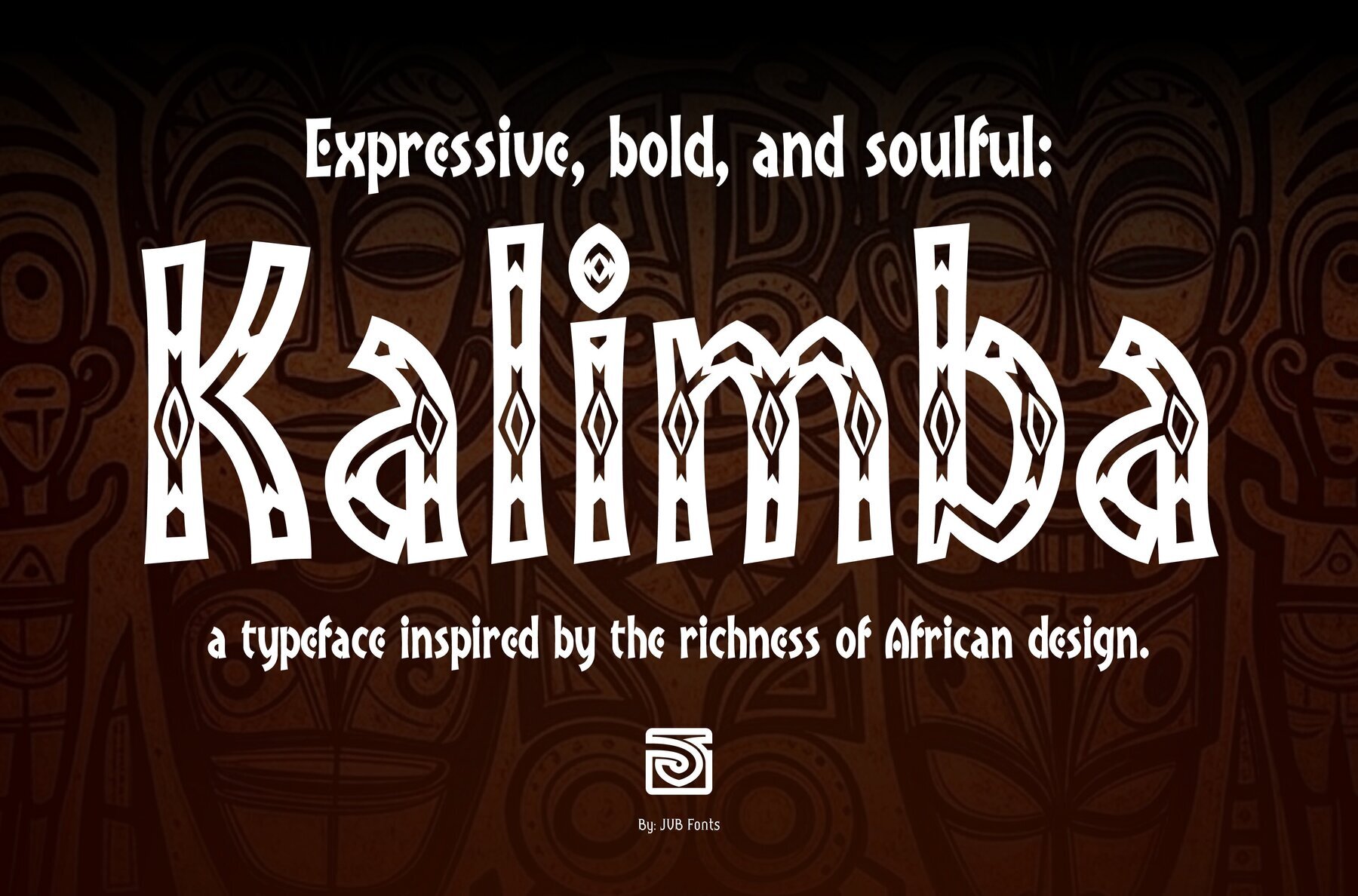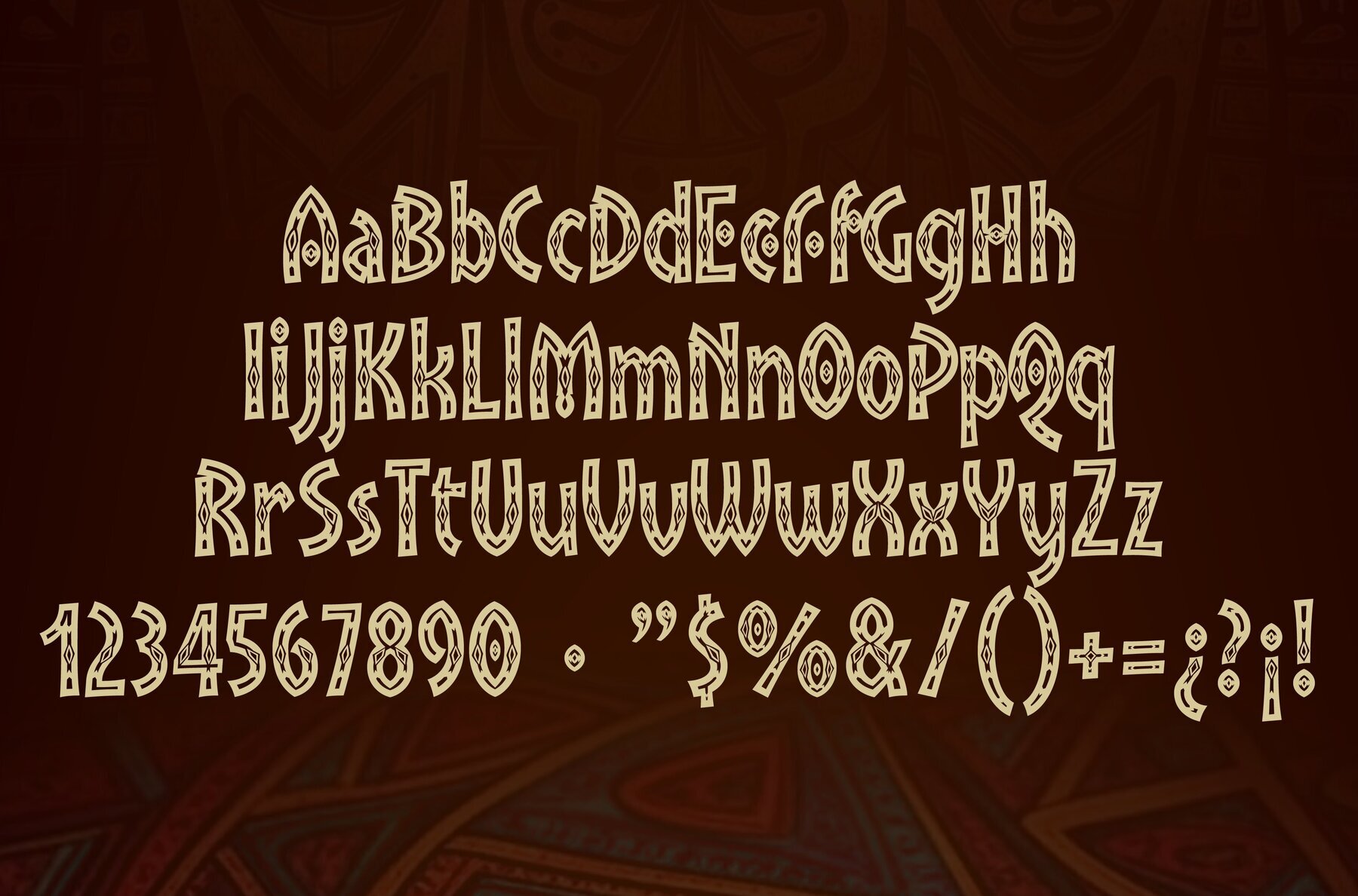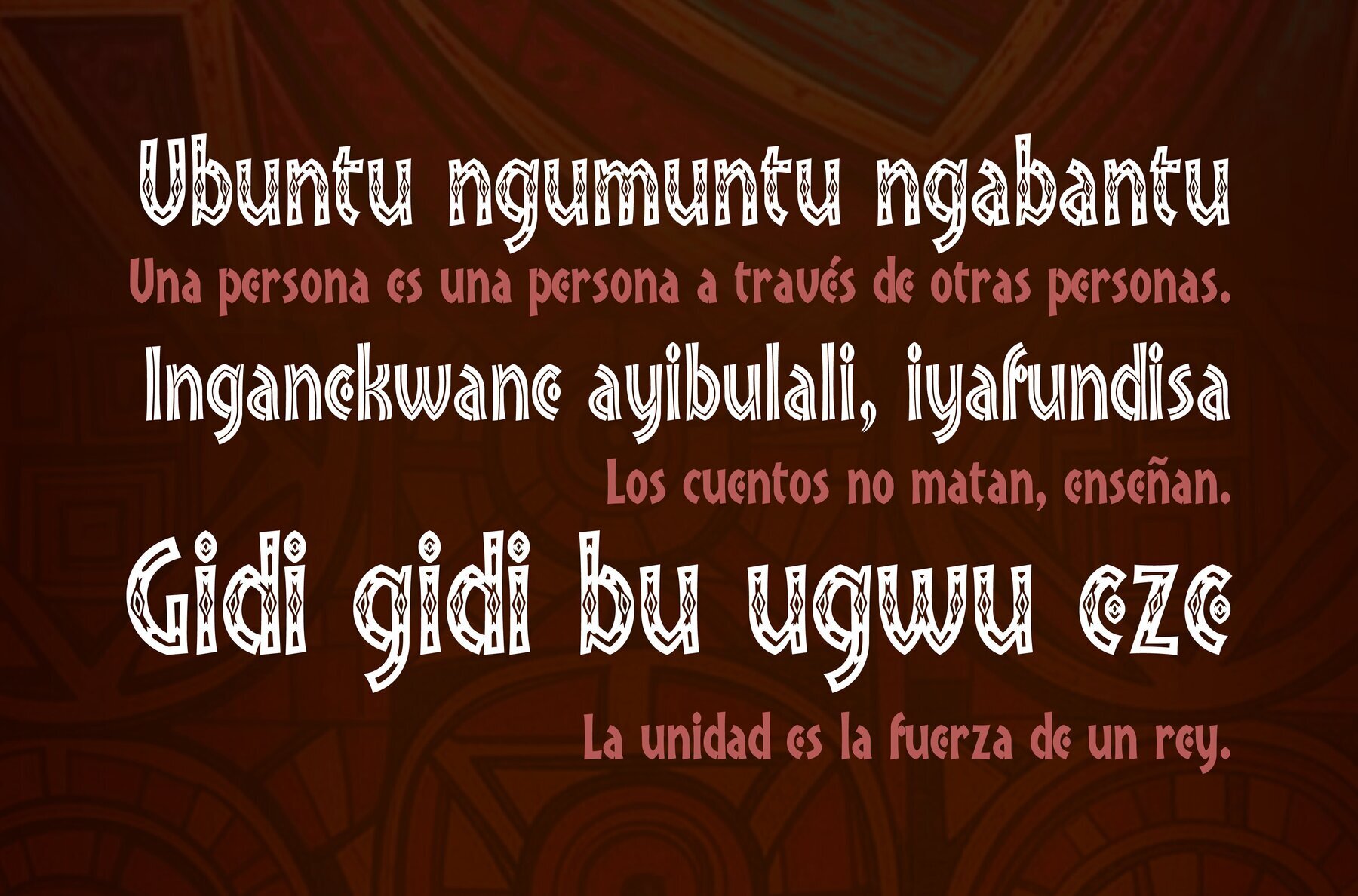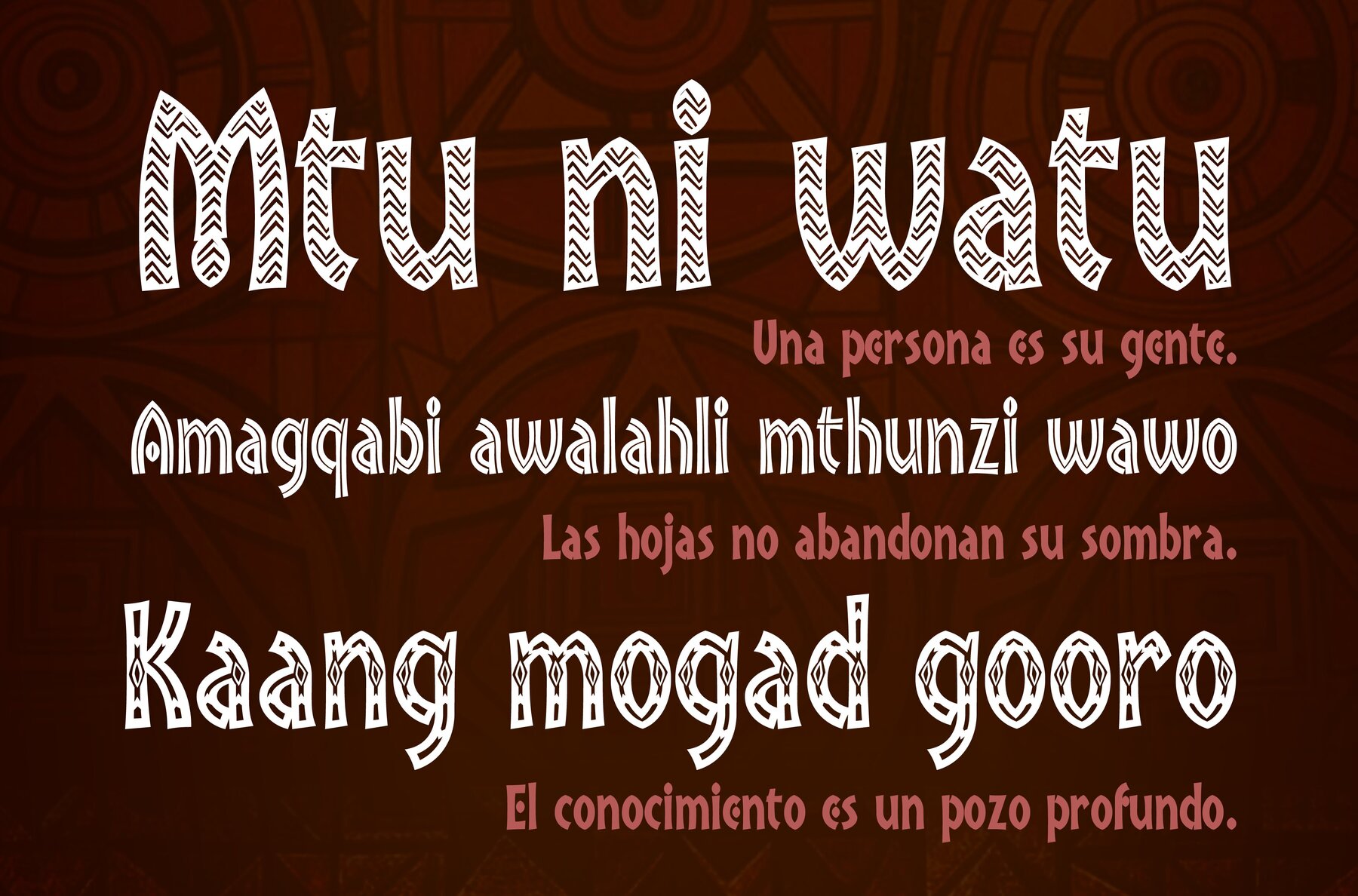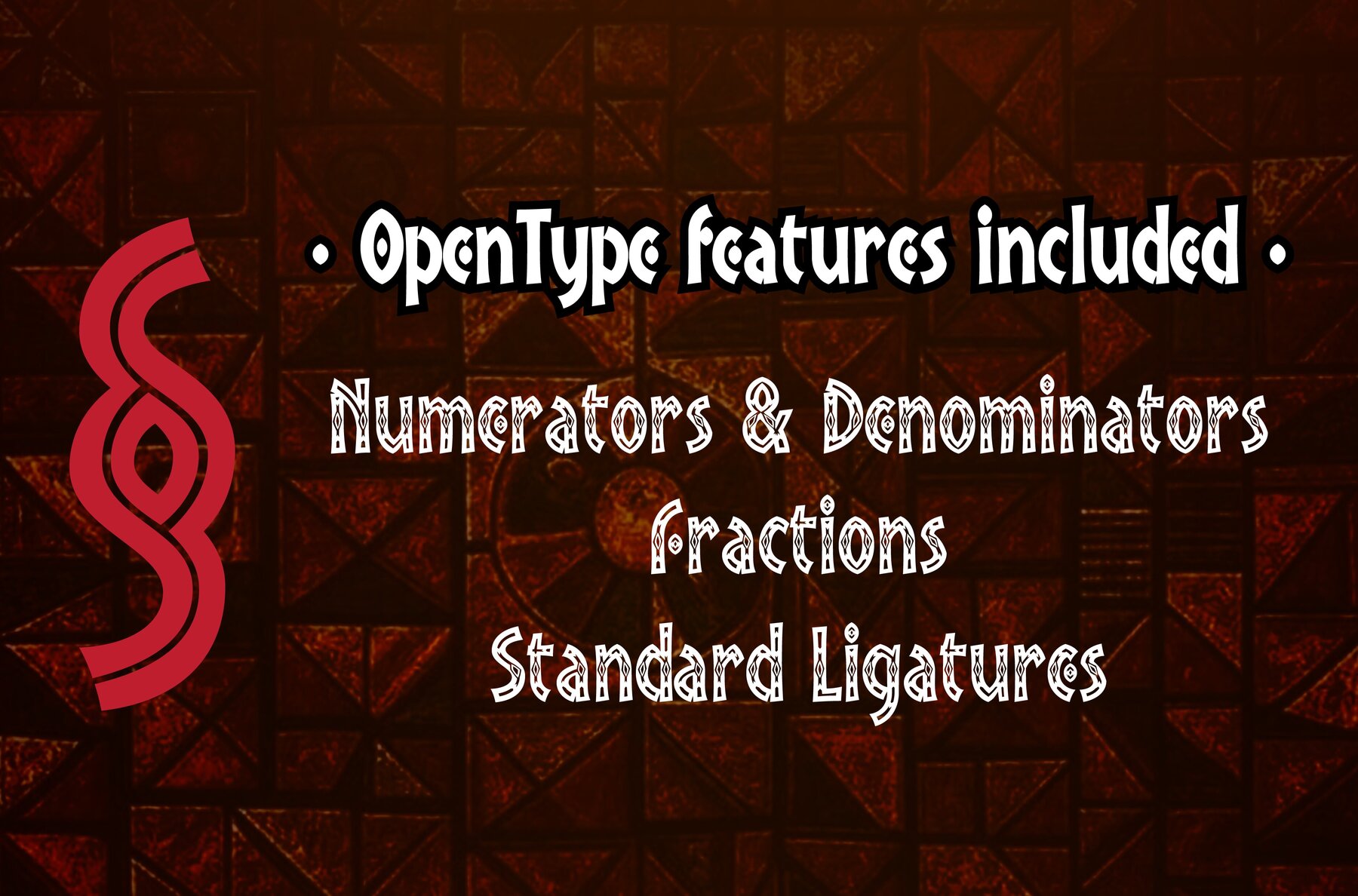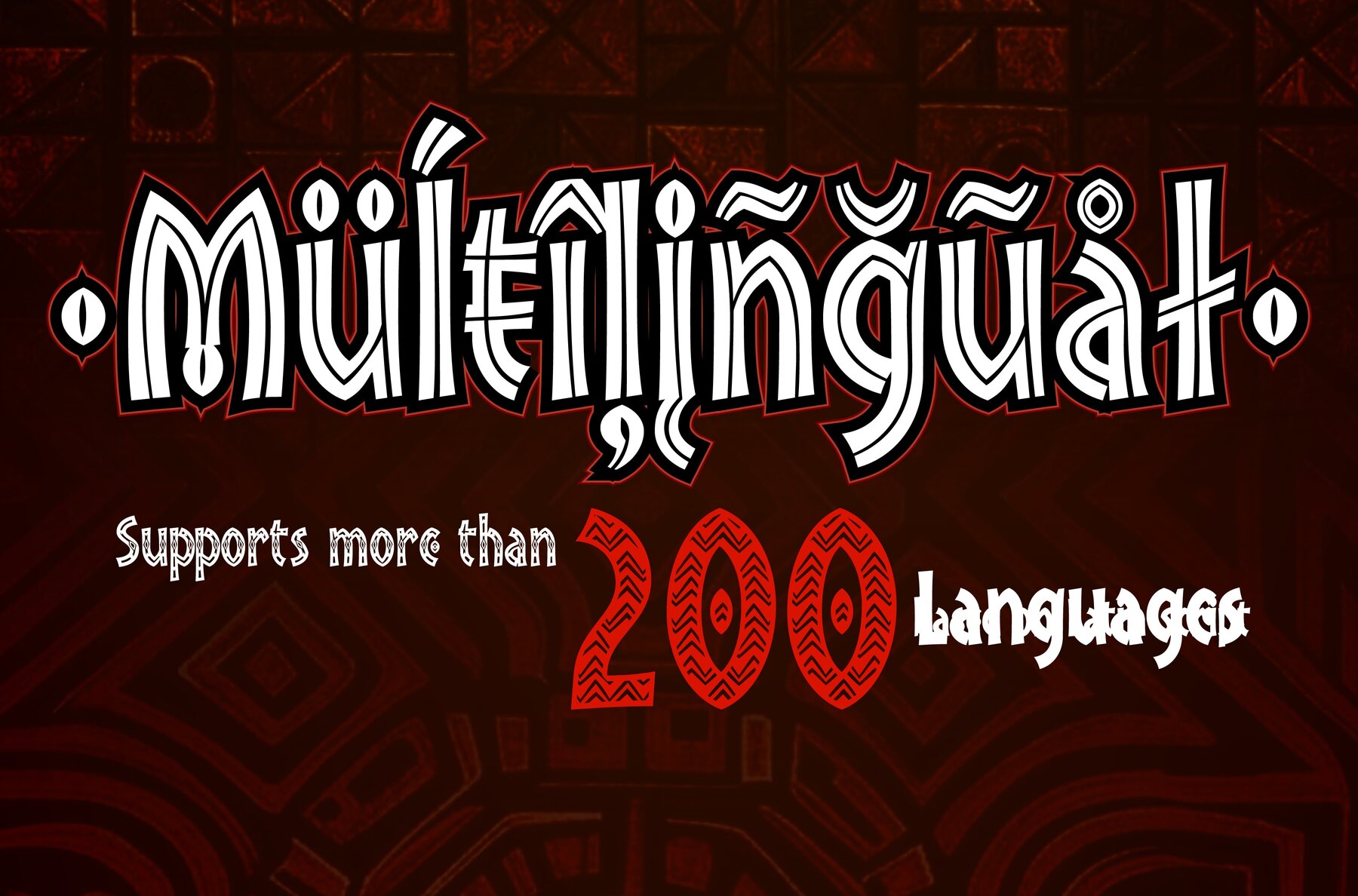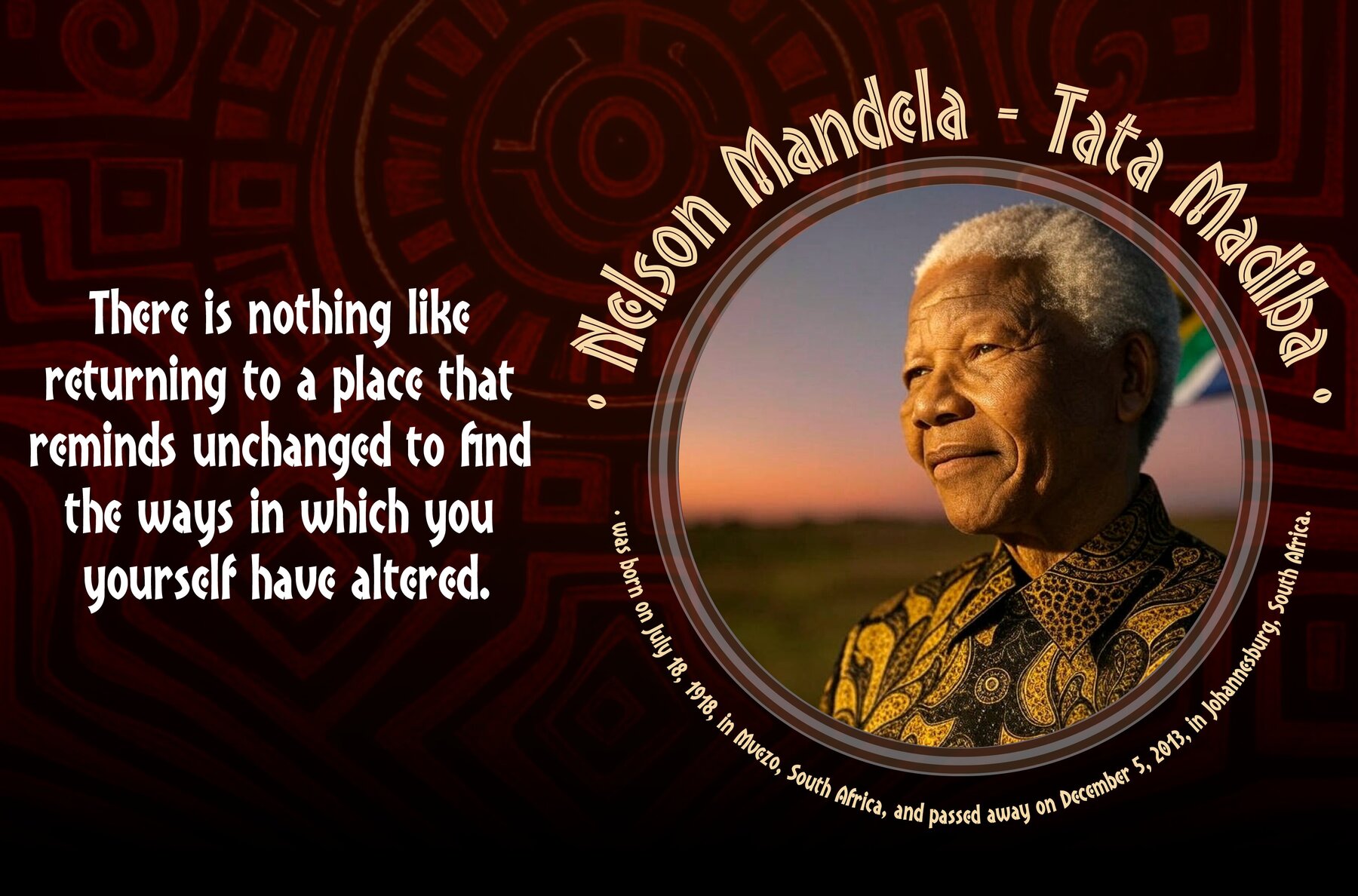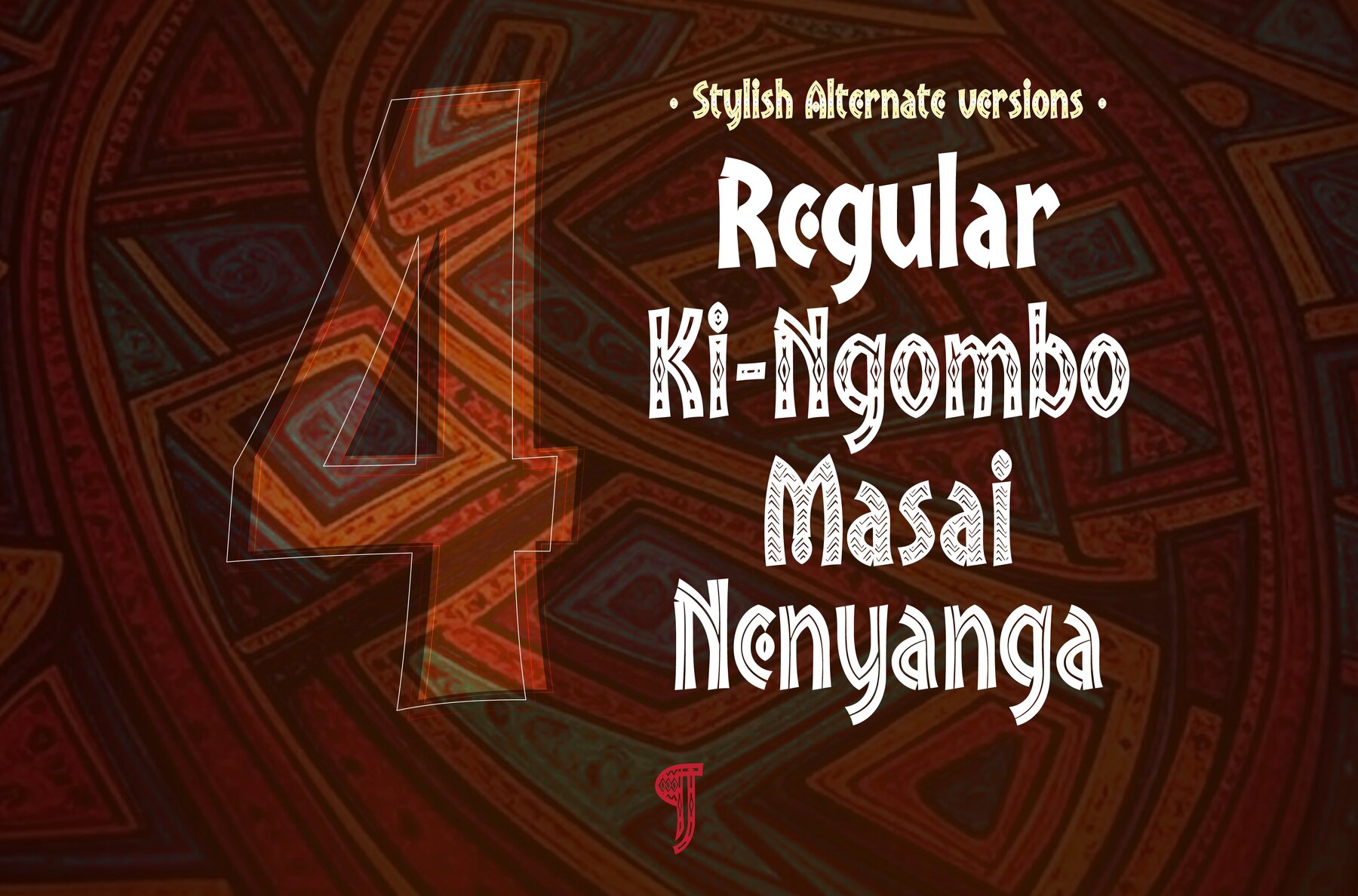
Kalimba Font
Kalimba Regular
Kalimba KiNgombo
Kalimba Masai
Kalimba Nenyanga
Kalimba, inspired by the simple shapes often found in African cultural visuals, brings a unique touch to your design toolbox. With over 500 glyphs, this typeface supports multiple European languages, including those in Central and Eastern Europe. Its design is enriched with OpenType features like ligatures, fractions, and ordinals, making it versatile for various design purposes.
Ideal for logos, illustrations, and games, Kalimba encapsulates the essence of African aesthetics, adding a distinctive flair to your projects. In March 2025, the typeface family was updated to version 1.5, introducing 40 new diacritical glyphs and 14 new currency signs to enhance its functionality and appeal. Whether you seek to evoke a cultural connection or need a bold graphic design statement, Kalimba offers a range of possibilities.